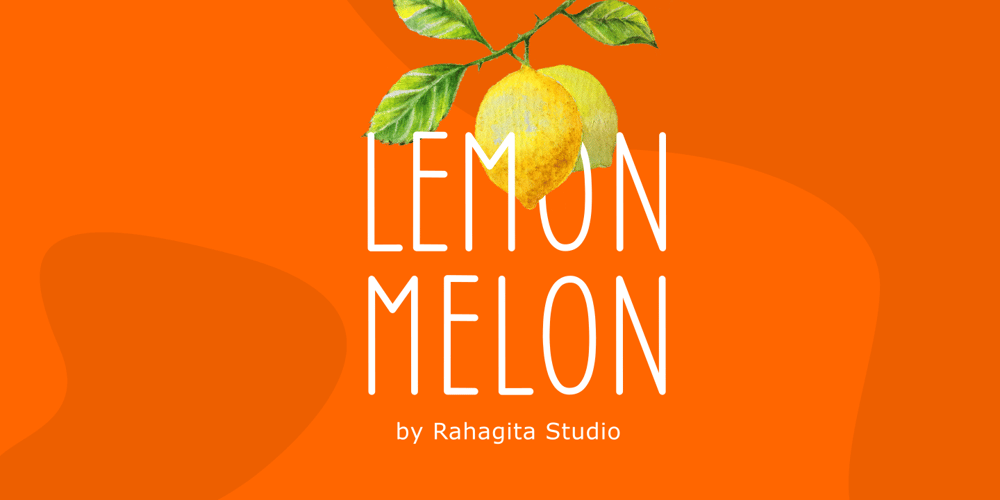
Lemon Melon Font Family was designed by Setiadi Rahagita and published by RahagitaType. Lemon Melon contains 1 styles and family package options. Lemon Melon is a cute & fun display font. This font is the perfect fit for all of your logos, branding, social media, and crafty DIY projects.